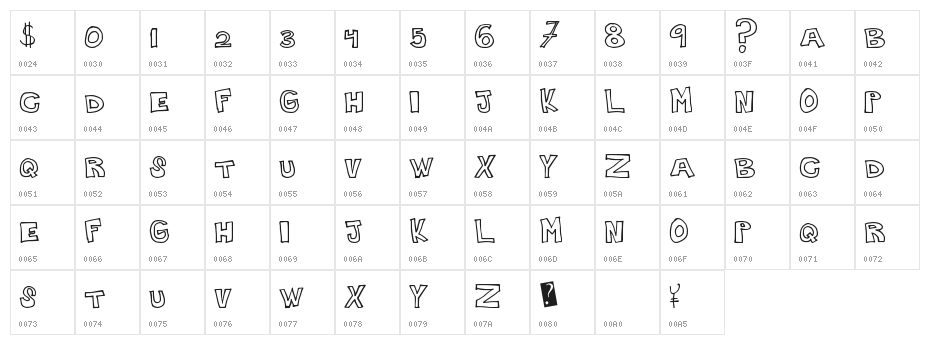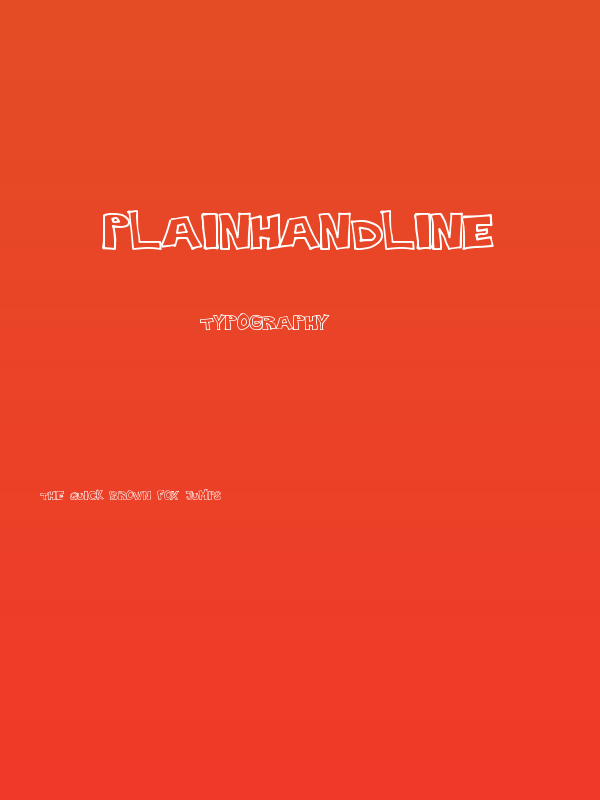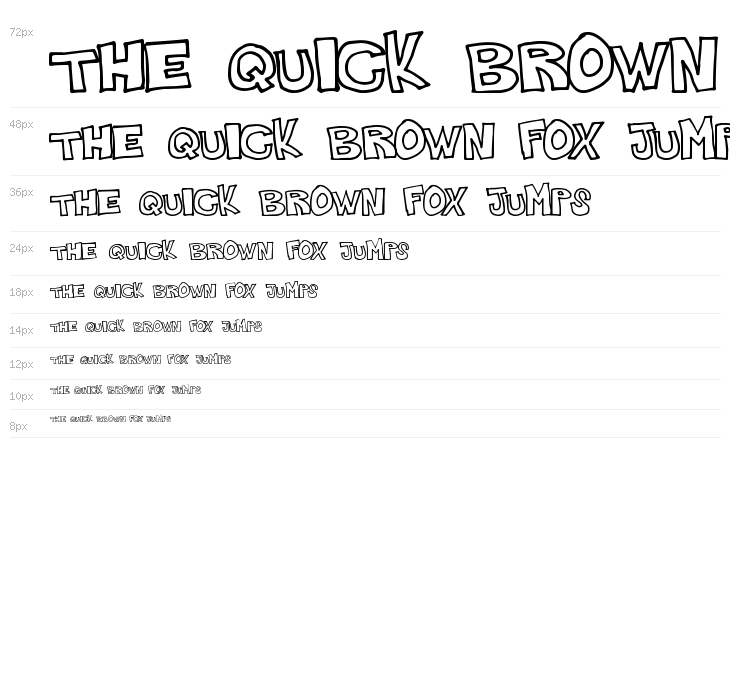
PlainHandline Font
PlainHandline Description
This font features a playful and bold handwritten style, characterized by its thick, uneven strokes and slightly irregular letterforms. The letters have a casual, informal appearance, with a whimsical touch that makes them stand out. The uppercase and lowercase letters maintain a consistent style, with rounded edges and a slightly tilted orientation, adding to the font's dynamic look. The numbers and special characters follow the same design principles, ensuring a cohesive appearance across all glyphs. This font is perfect for projects that require a fun and approachable aesthetic.
Proposed ProjectsIdeal for children's books, comic strips, playful branding, and casual invitations.